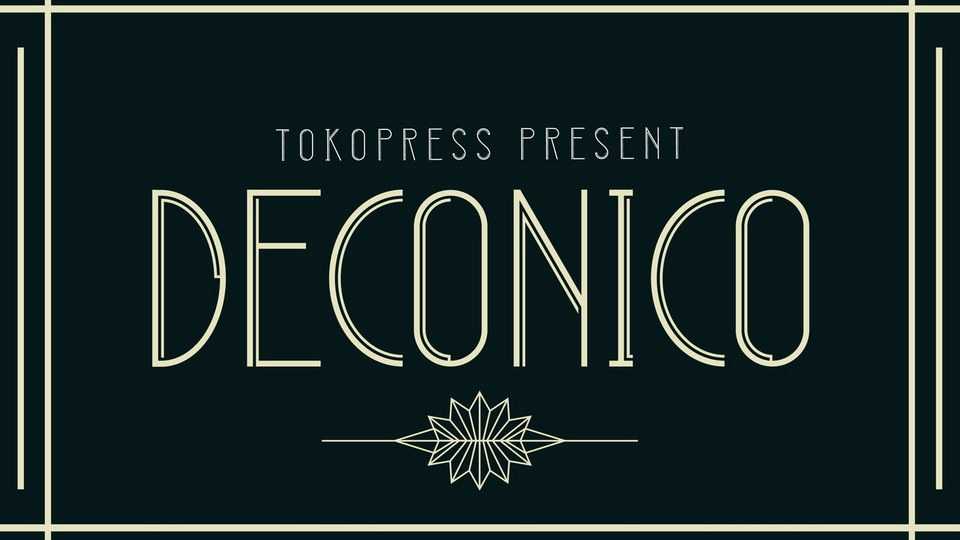
Download Deconico font, a retro art deco typeface. Taking an art deco look, Deconico is all about classic, elegance, and high class feel all over it.